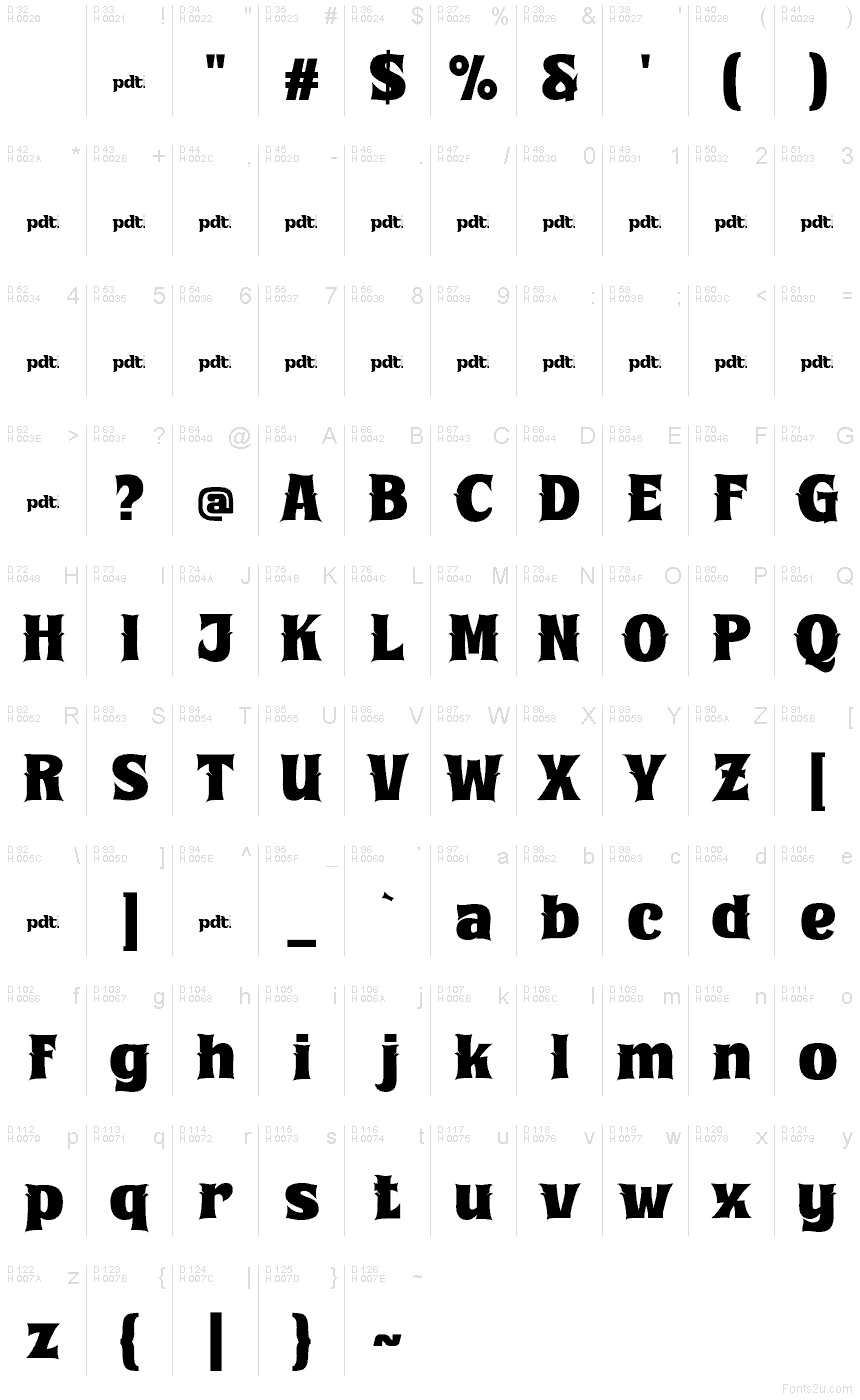
XEKOVAtrial Regular
Xekova font, crafted by productype.com, is a bold display typeface with Gothic influences and a distinctive vintage appearance. It embodies a theatrical aesthetic with ornate and decorative elements that capture attention effortlessly. This free display font carries an air of drama while maintaining elegance.
Use Xekova for book covers, posters, video games, shops signs, stationery projects, album covers, tattoos sketching, magazine designs. Complete branding projects for restaurants or keep it minimal with specialized typography artwork.